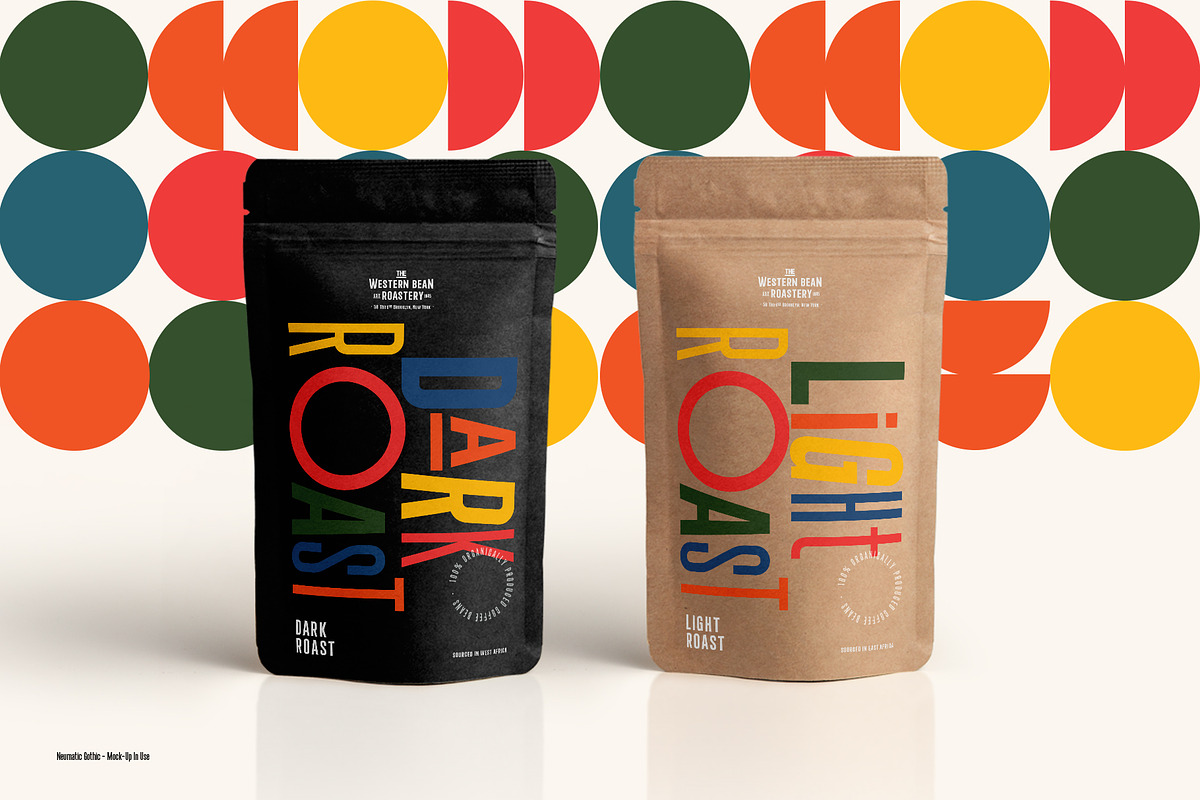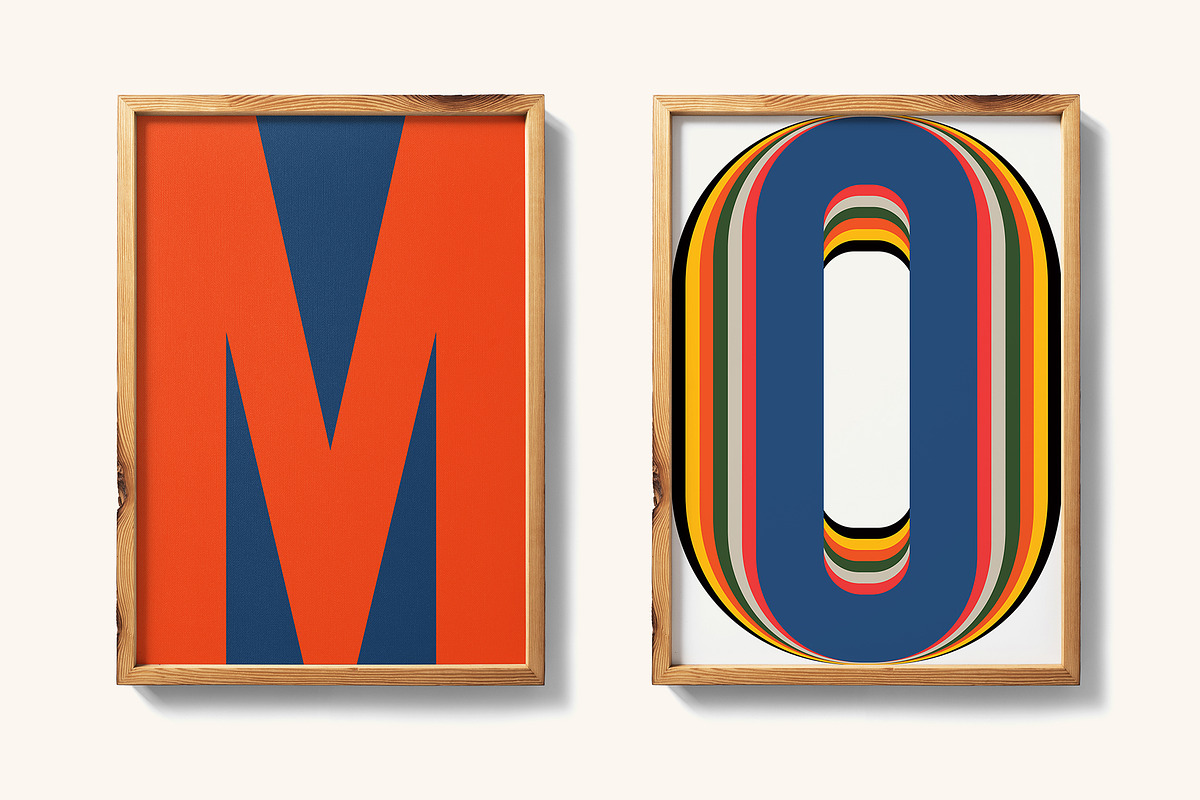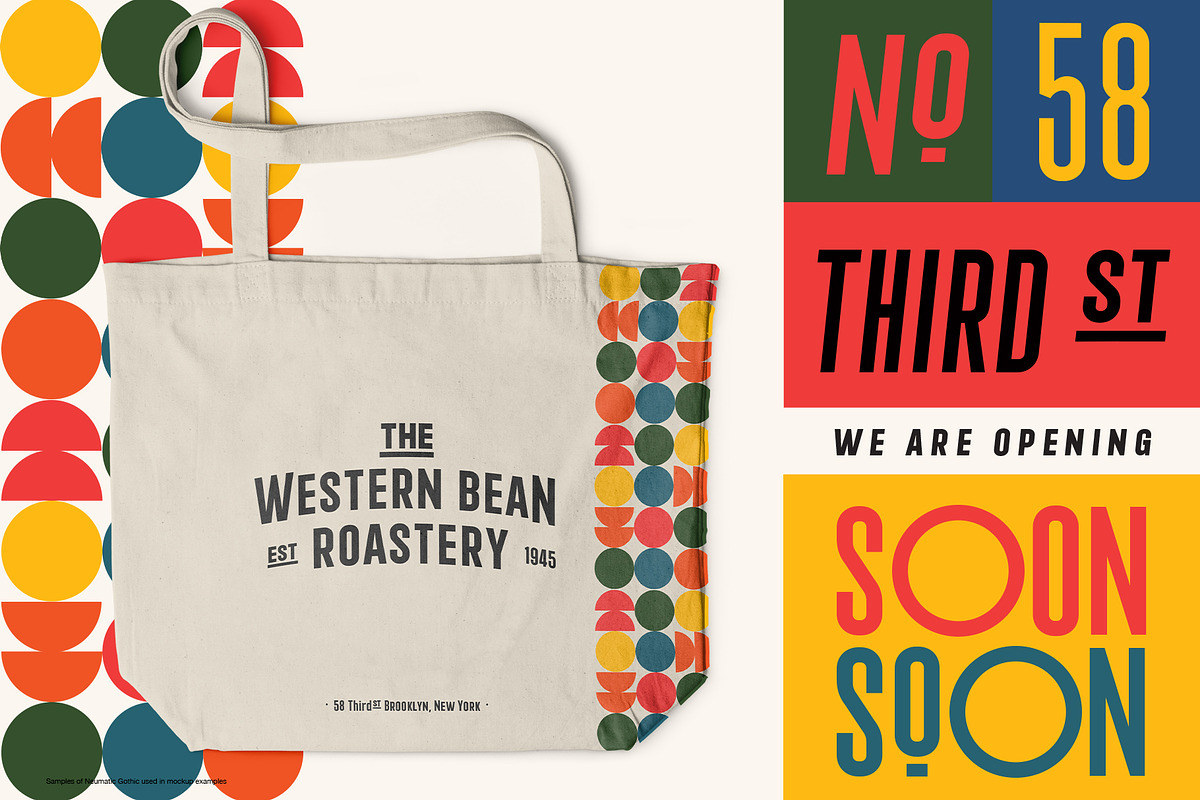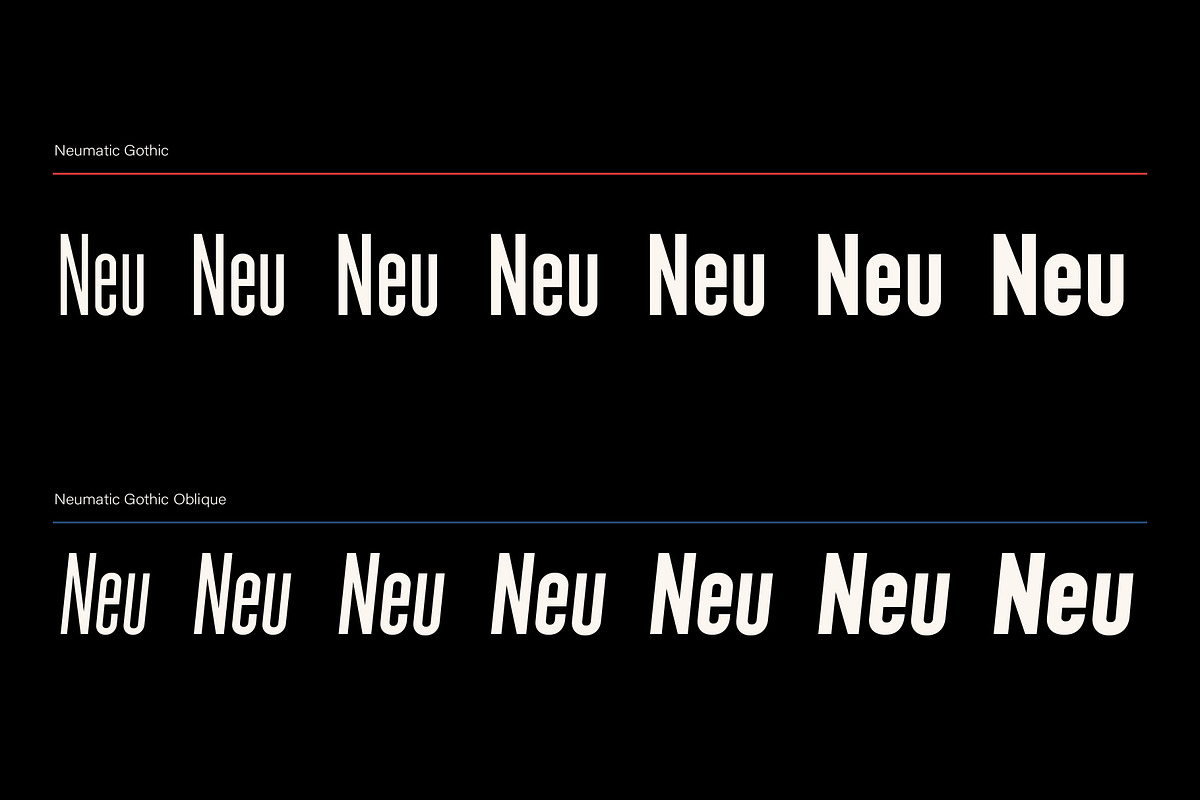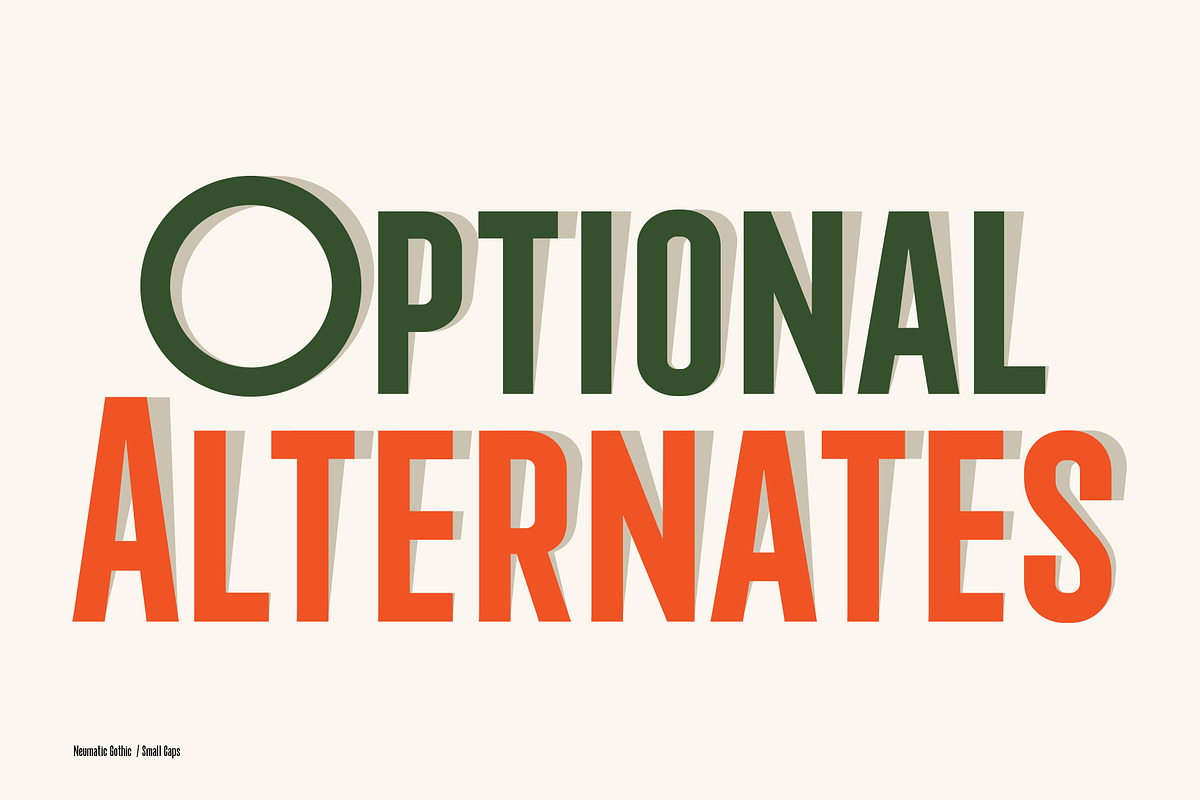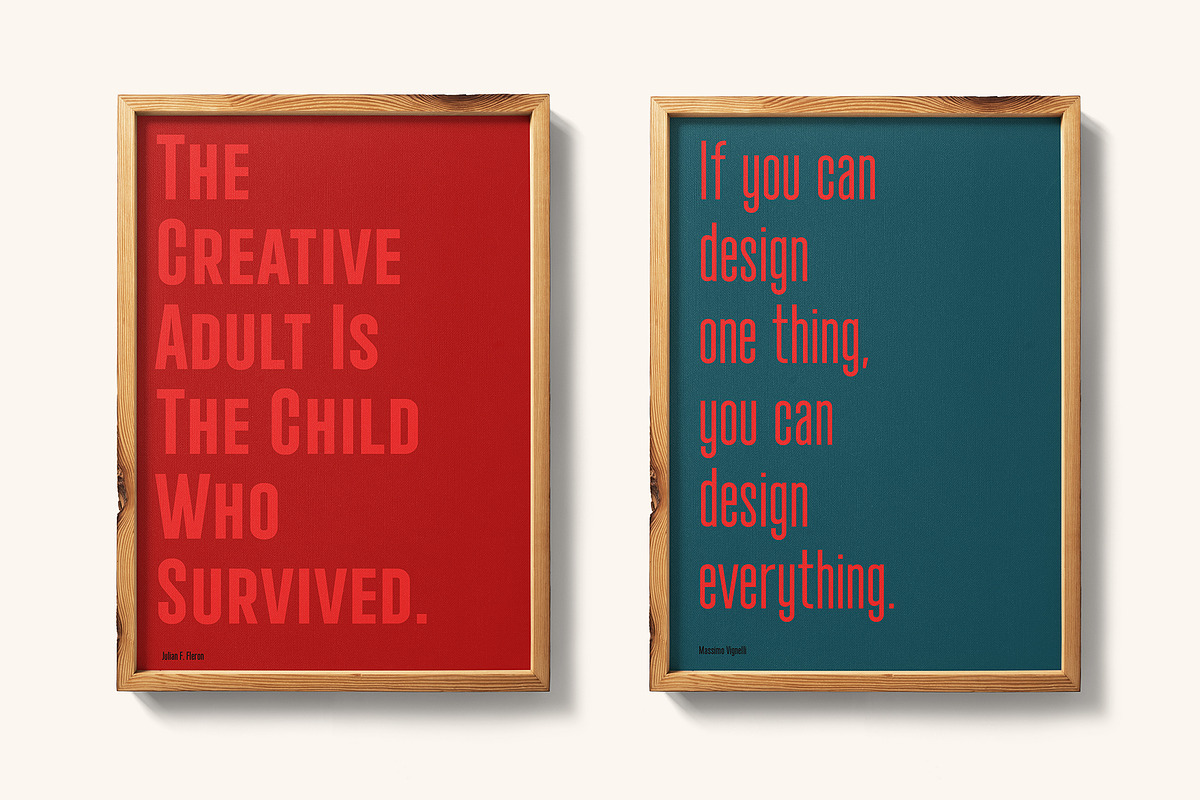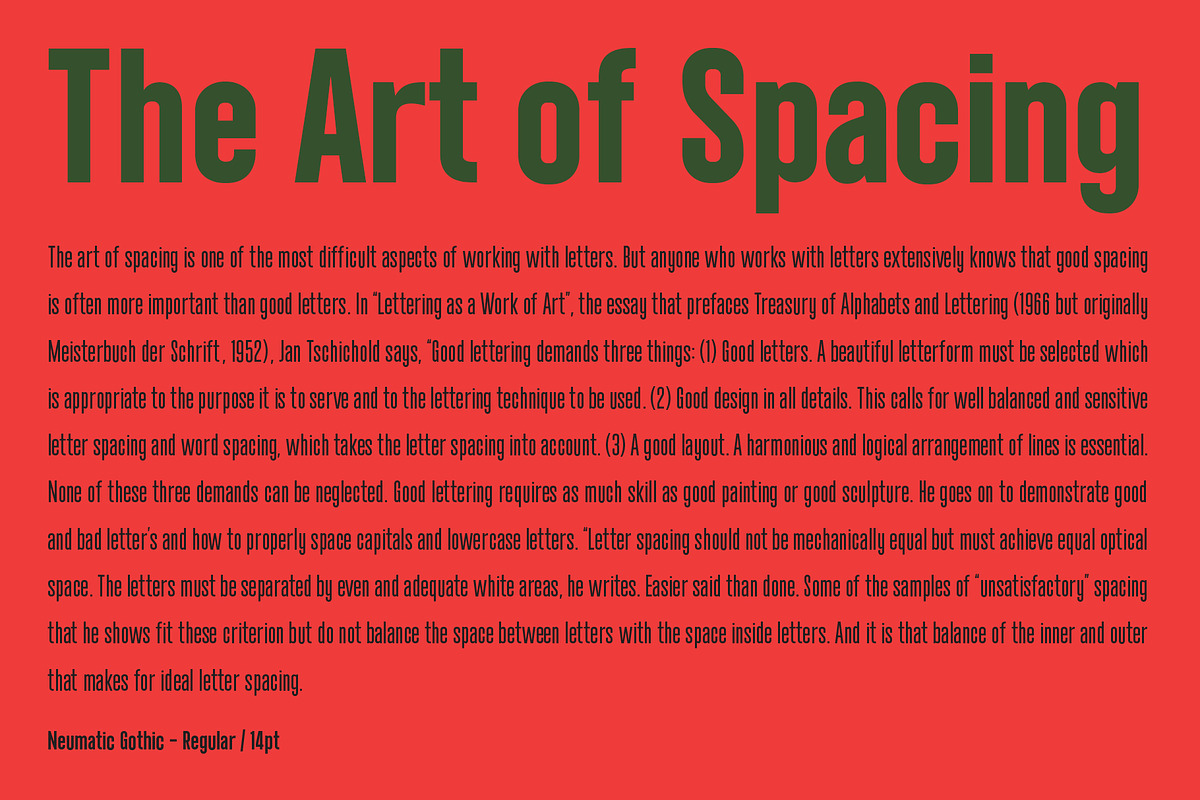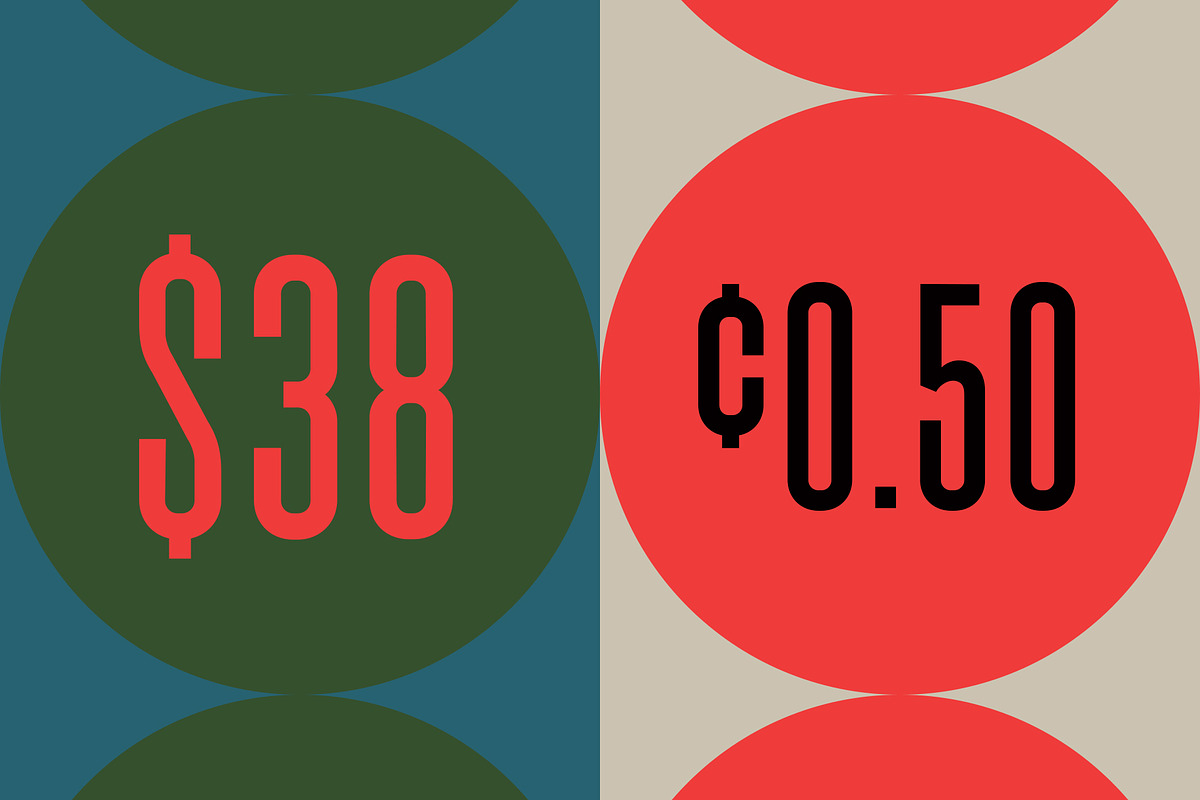
Neumatic Gothic
Nuematic Gothic is a condensed sans-serif family. It has a tall Cap Height and an x-height to balance it. Neumatic Gothic is versatile in use as a Headline font or as a text font.
Neumatic Gothic has loads of options to play around with, included in the glyph set is small caps a stylistic uppercase superscript, stylistic alternates and circled numbers to name some. The typeface was designed with the graphic designer in mind to make beautiful typographic pieces with more ease with all the options you have in Neumatic Gothic.